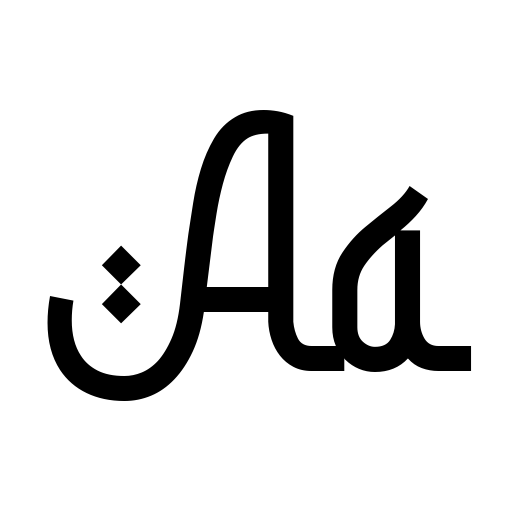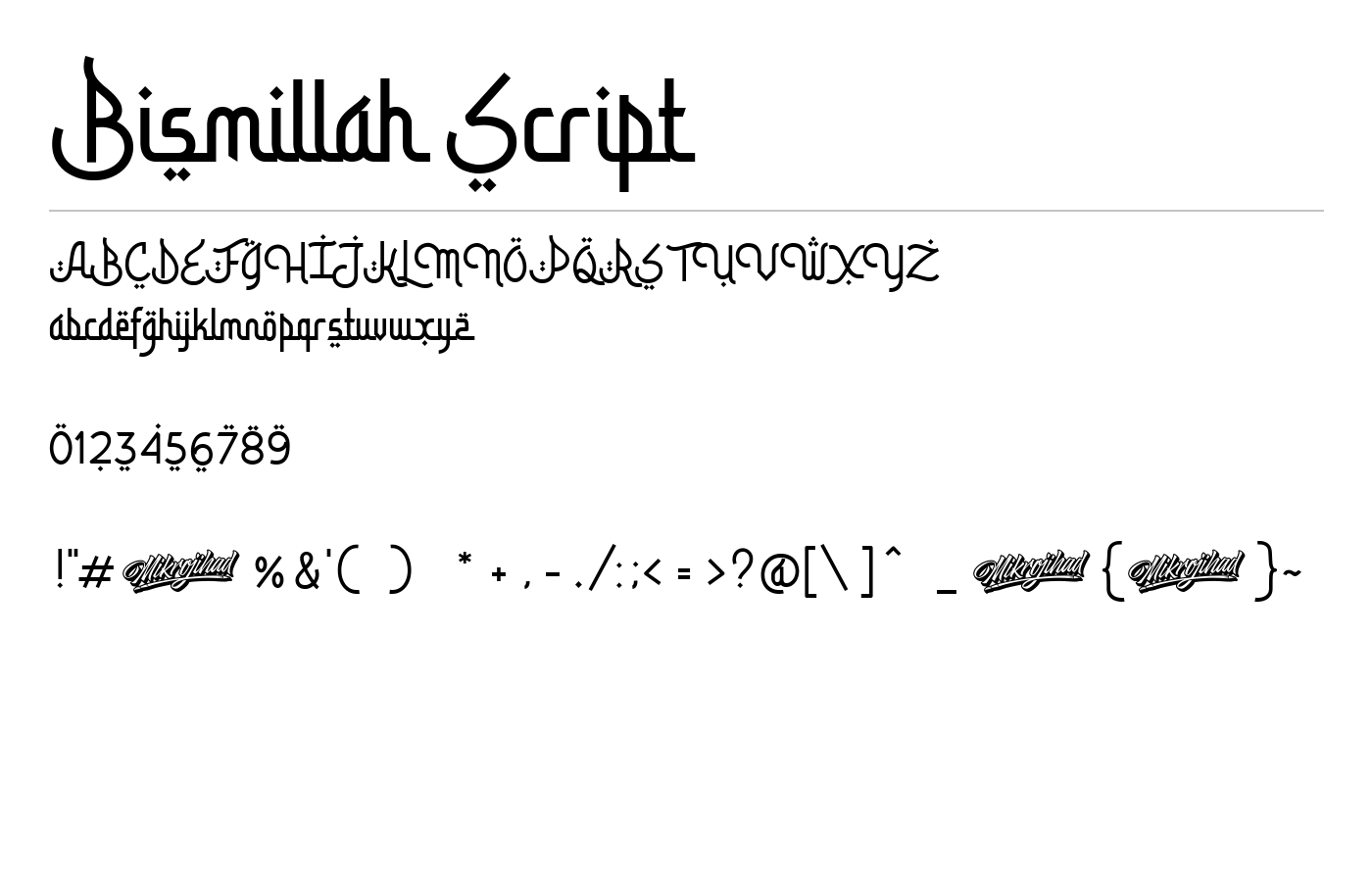
Bismillah Script is a unique, modern script font with a distinct blend of geometric and calligraphic elements, featuring narrow, tall letterforms with fine, smooth strokes and a medium contrast between thick and thin lines. Its stylized design, including delicate curves and sharp edges, evokes an elegant yet contemporary feel, making it ideal for creative branding, logos, and headlines that require a sophisticated, culturally inspired touch. This font stands out in projects needing a refined, artistic flair with a hint of traditional script influence.
Bismillah Script Font
About Bismillah Script Font
| Font family | Bismillah Script Font |
| Designer | Hendra Pratama (Mikrojihad) |